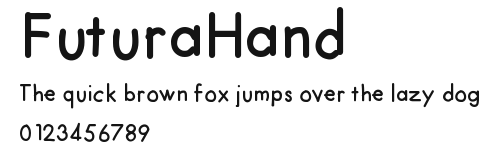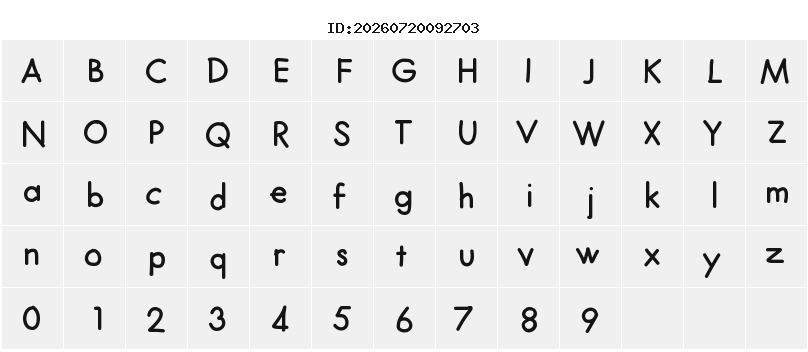
FuturaHand Preview
About FuturaHand.ttf
FuturaHand.ttf is a modern, elegant sans-serif font designed for ultimate readability and visual harmony. Perfect for branding, headlines, web design, and print materials.